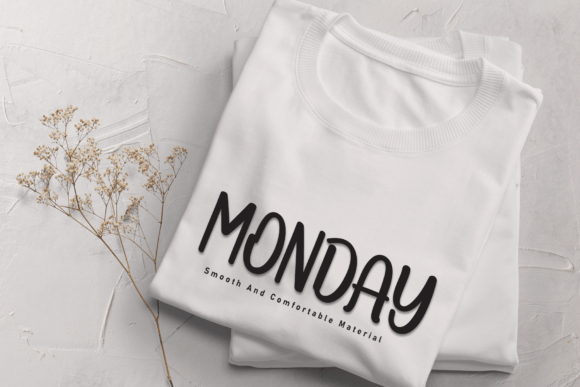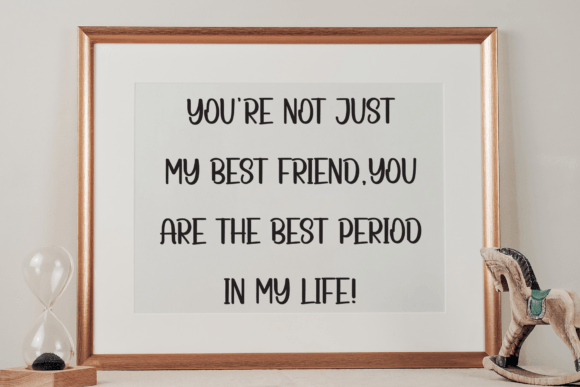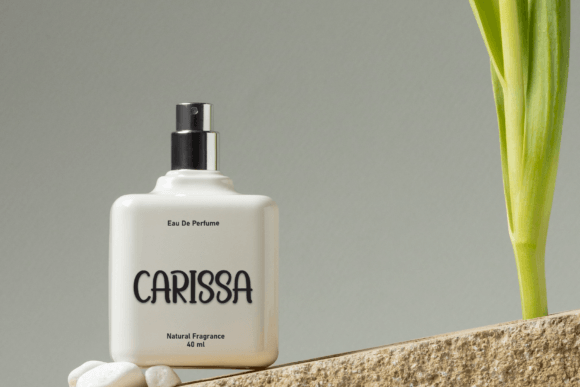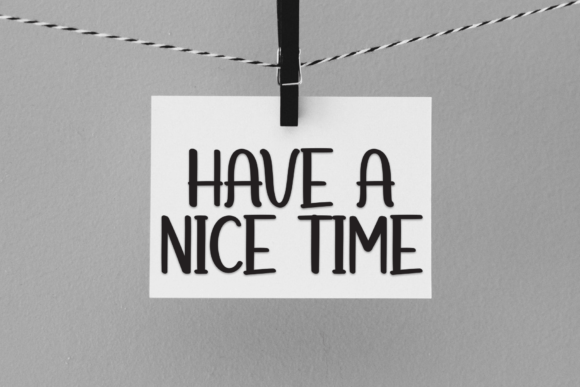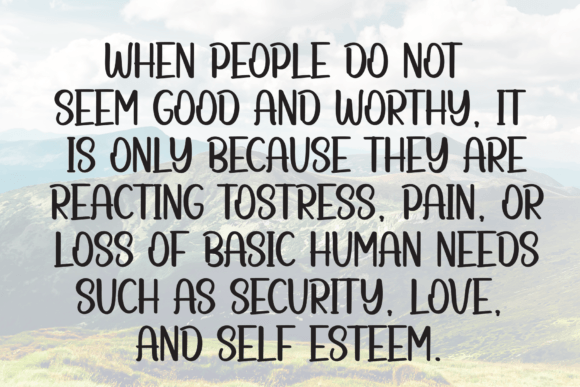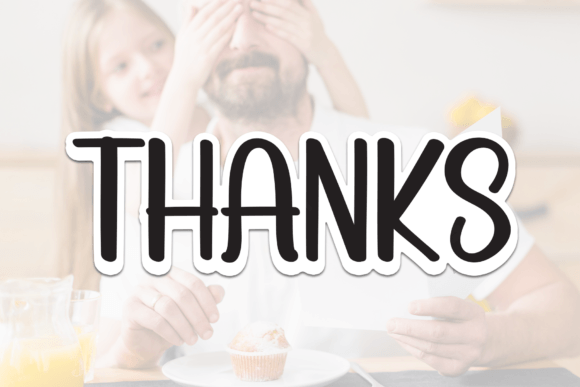
Introducing Father Font: The Sweet and Friendly Handwritten Font for Your Design Needs
Are you looking for a font that can add a touch of warmth and personality to your designs? Look no further than Father Font, a sweet and friendly handwritten font that’s perfect for creating eye-catching wedding invitations, cards, and other creative projects. In this article, we’ll take a closer look at Father Font, its features, and how you can use it to elevate your designs.
What is Father Font?
Father Font is a beautifully crafted handwritten font that’s designed to bring a sense of joy and playfulness to your designs. With its cute and fun style, this font is ideal for creating designs that require a personal touch. Whether you’re a designer, crafter, or DIY enthusiast, Father Font is a versatile font that can be used for a wide range of projects.
Key Features of Father Font
- Handwritten style: Father Font has a natural, handwritten look that’s perfect for creating personal and heartfelt designs.
- Cute and fun: This font is designed to add a touch of playfulness to your designs, making it ideal for projects that require a lighthearted and whimsical feel.
- Versatile: Father Font can be used for a wide range of projects, including wedding invitations, cards, posters, and more.
- Easy to read: Despite its playful style, Father Font is easy to read, making it perfect for designs that require a clear and concise message.
How to Use Father Font in Your Designs
Father Font is a versatile font that can be used in a variety of design projects. Here are some ideas to get you started:
- Wedding invitations: Add a personal touch to your wedding invitations with Father Font. Its sweet and friendly style is perfect for creating romantic and memorable invitations.
- Cards and stationery: Use Father Font to create cute and fun cards and stationery for special occasions, such as birthdays, anniversaries, and holidays.
- Posters and flyers: Add a playful touch to your posters and flyers with Father Font. Its bold and eye-catching style is perfect for grabbing attention and conveying a message.
- Digital designs: Use Father Font in your digital designs, such as social media graphics, blog posts, and email newsletters, to add a personal and friendly touch.
Tips for Getting the Most Out of Father Font
Here are some tips for getting the most out of Father Font:
- Experiment with different sizes and colors: Father Font looks great in a variety of sizes and colors. Experiment with different combinations to find the one that works best for your design.
- Pair with other fonts: Father Font pairs well with other fonts, such as serif and sans-serif fonts. Experiment with different font combinations to create a unique and eye-catching design.
- Use it sparingly: While Father Font is a beautiful font, it can be overwhelming if used too much. Use it sparingly to add a touch of personality to your design.
Father Font is a sweet and friendly handwritten font that’s perfect for adding a touch of personality to your designs. With its cute and fun style, this font is ideal for creating eye-catching wedding invitations, cards, and other creative projects. Whether you’re a designer, crafter, or DIY enthusiast, Father Font is a versatile font that can be used for a wide range of projects. So why not give it a try and see how it can elevate your designs?